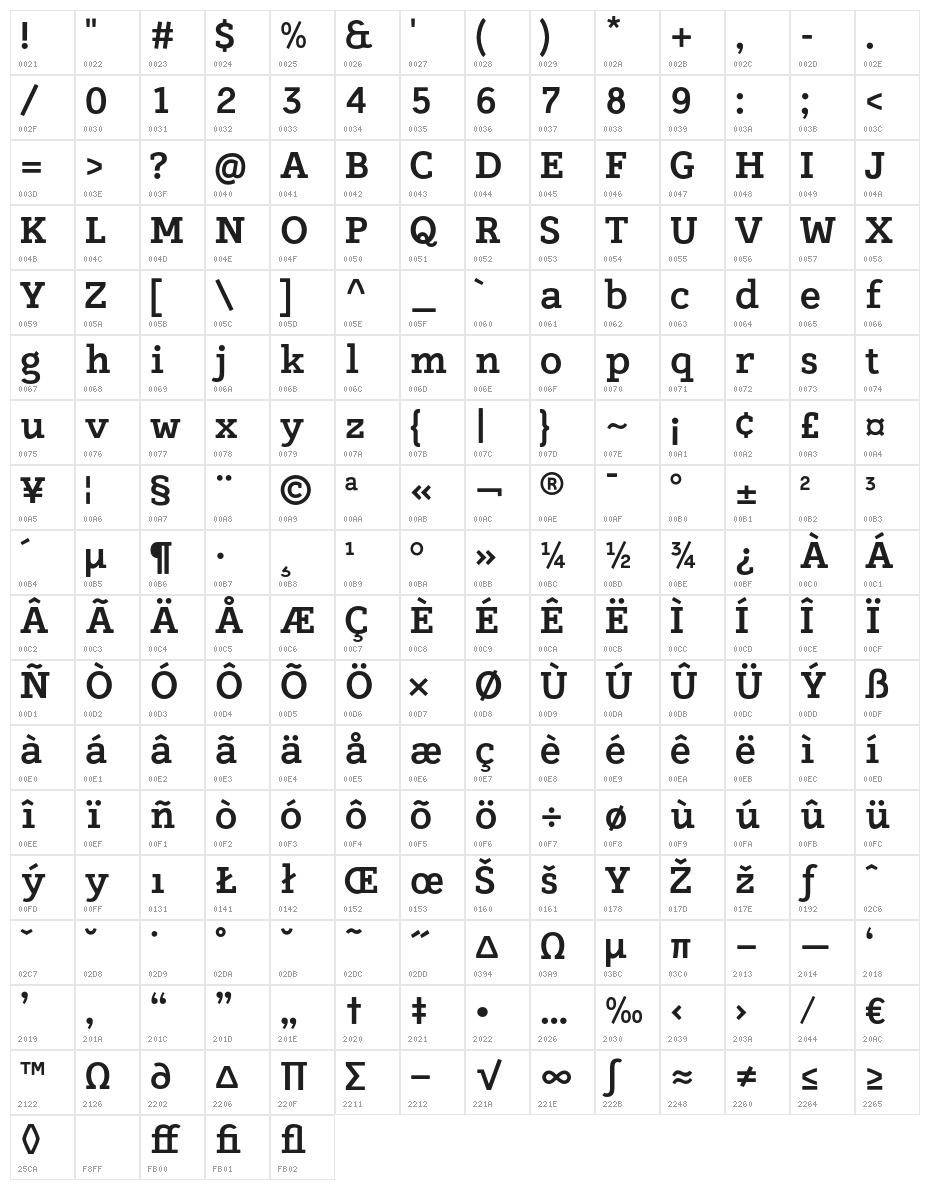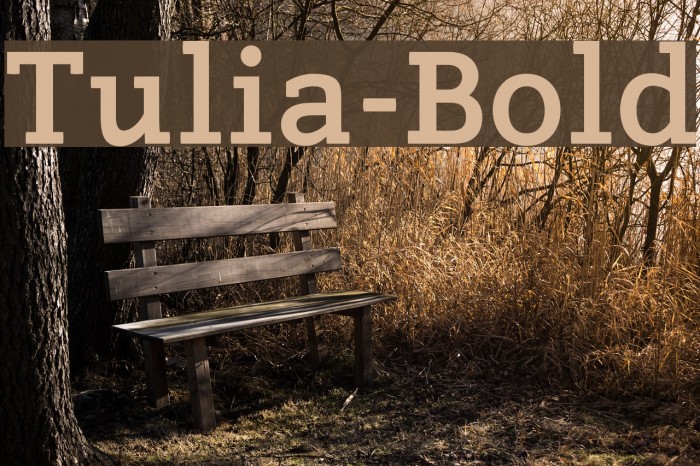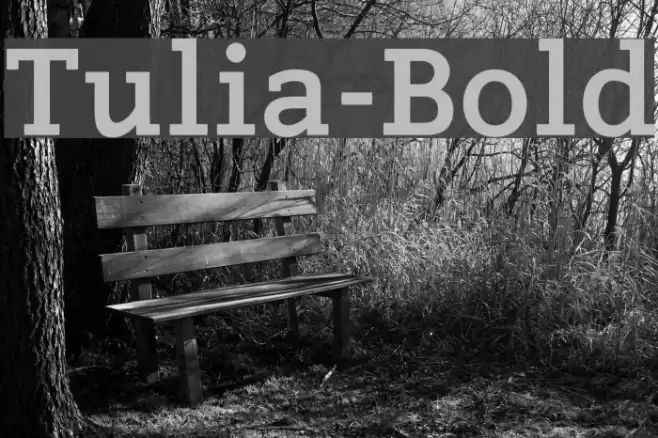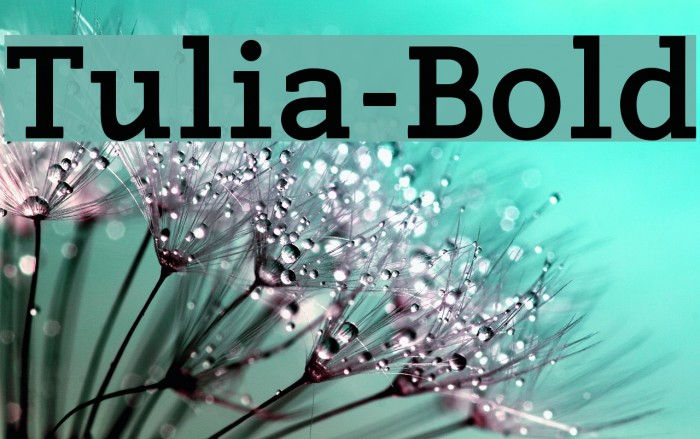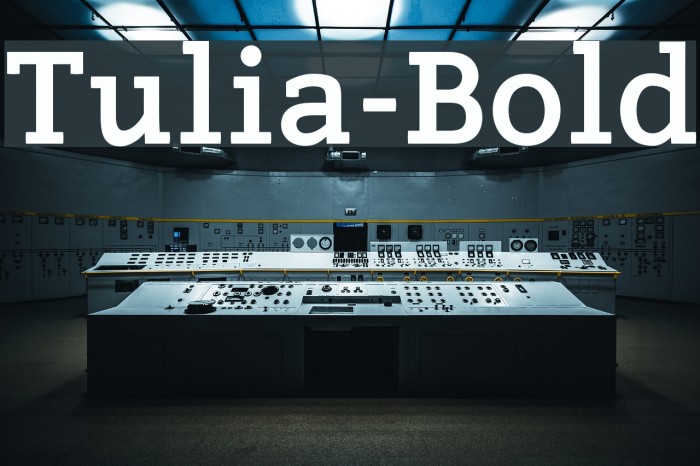
Tulia-Bold Font
Tulia-Bold Description
This font features a bold and robust design with strong, thick strokes that convey a sense of confidence and authority. The characters are well-defined with a slight curvature that adds a touch of elegance. The uppercase letters are particularly striking, with a commanding presence that makes them ideal for headlines or titles. The lowercase letters maintain a consistent style, ensuring readability and balance. The numerals are clear and distinct, making them suitable for various applications. Special characters are included, providing versatility for different contexts.
| Proposed Projects | Ideal for headlines, posters, branding materials, and any project requiring a strong visual impact. |